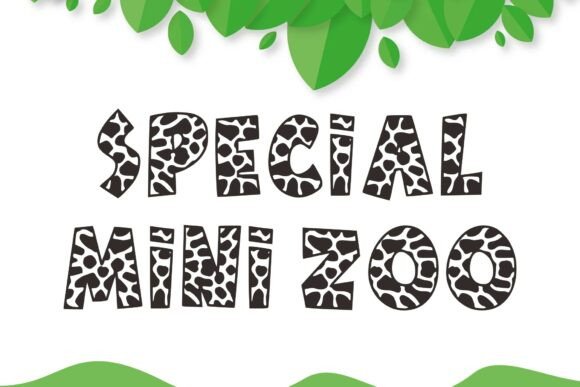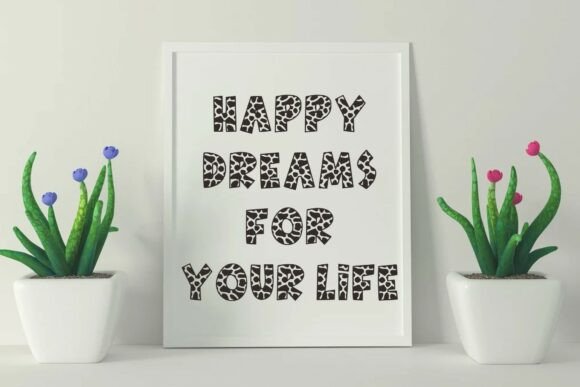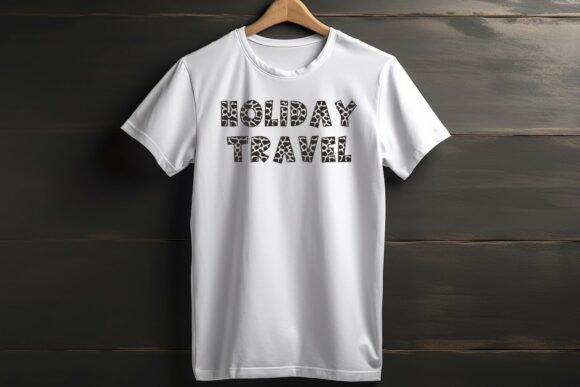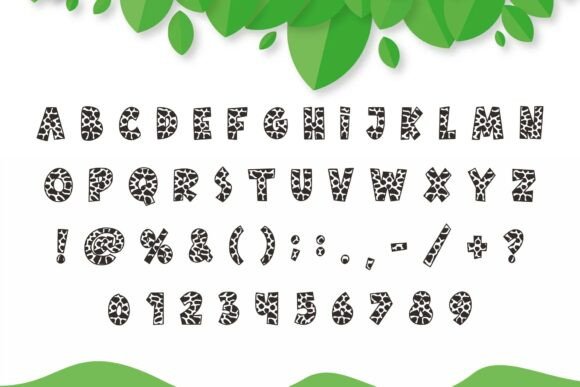
The Wild Side of Typography: Discovering Giraffe Texture Font
I’ll never forget the design project that led me to discover the Giraffe Texture font. I was working on a children’s book about a safari adventure, and I needed a font that would bring the savannah to life. After hours of scrolling through font libraries, I stumbled upon this quirky, adventurous typeface that perfectly captured the spirit of the wild. In this article, I’ll share my experience with Giraffe Texture font, its unique features, and how to make the most of it in your creative projects.
Here’s what I love about Giraffe Texture font:
- ✨ Unique texture: Each character is filled with organic, pebble-like patterns that mimic a giraffe’s coat, adding a tactile feel to your designs.
- ✅ Highly legible: Despite its intricate patterns, the font remains clear and readable, even at smaller sizes.
- 🎉 Versatile: Perfect for children’s books, zoo branding, eco-friendly packaging, and more.
And a few quirks to keep in mind:
- 🤔 Limited use at small sizes: The texture can get lost at very small sizes, so it’s best used for headlines or titles.
- ⚠️ Pairing challenges: The font’s bold texture can overwhelm simpler designs, so choose complementary fonts carefully.
- Experiment with OpenType features like stylistic alternates to add more variety to your text.
- Dive into the Glyphs panel to access alternative characters and create unique text styles.
The Story Behind Giraffe Texture Font
Giraffe Texture font was inspired by the beauty and uniqueness of the African savannah. The designer aimed to capture the essence of a giraffe’s coat in a font that would bring a touch of the wild to creative projects. With its organic texture and adventurous feel, Giraffe Texture font is perfect for designers looking to add a bit of whimsy to their work.
| Font Name | Giraffe Texture Font |
| Author | riki.studio |
| What makes Giraffe Texture font unique? | Its organic, pebble-like patterns that mimic a giraffe’s coat, adding a tactile feel to your designs. |
| Is Giraffe Texture font suitable for small text? | While it’s best used for headlines or titles, it can be used for small text if the size allows the texture to remain visible. |
With its unique texture, adventurous feel, and versatility, Giraffe Texture font is a great addition to any designer’s toolkit. Whether you’re working on a children’s book, zoo branding, or eco-friendly packaging, this font is sure to bring the spirit of the savannah to your creative projects.